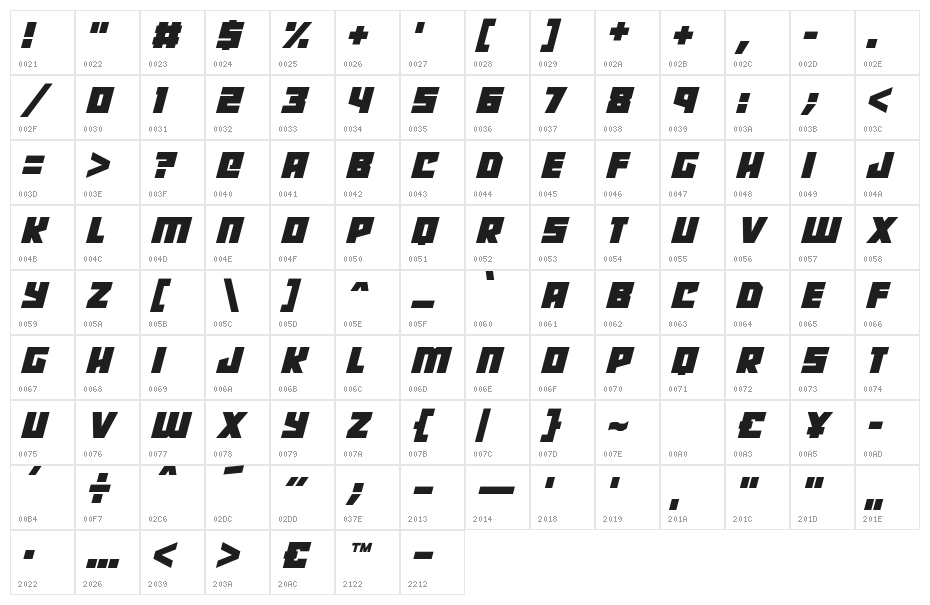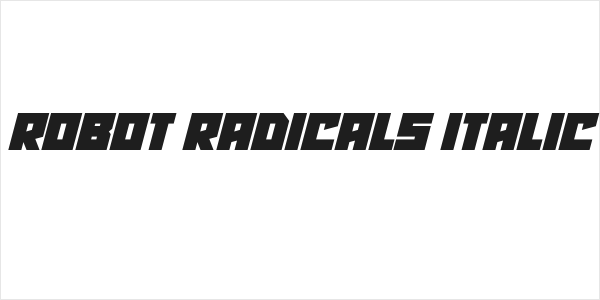
Robot Radicals Italic Font
Robot Radicals Italic Description
This font features a bold, angular design with a futuristic and dynamic appearance. The characters are slanted, giving them an italicized look that enhances their sense of motion and energy. The strokes are thick and consistent, providing a strong visual impact. The overall design is geometric, with sharp edges and a blocky structure that makes each letter stand out distinctly. This font is particularly suitable for projects that require a modern and edgy aesthetic, such as technology-related branding or sci-fi themed designs. The spacing between characters is tight, contributing to the compact and cohesive appearance of the text.
Darrell Flood
| Proposed Projects | Ideal for technology branding, sci-fi themes, video game titles, and dynamic posters. |